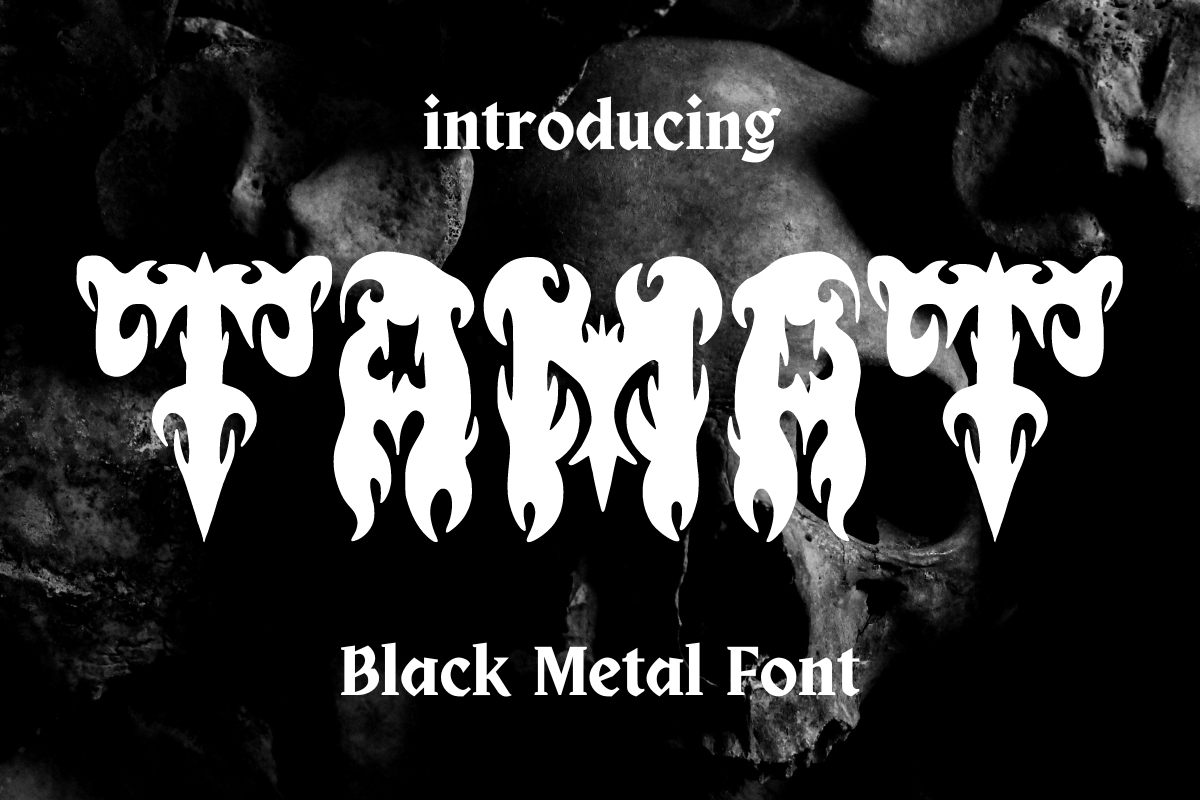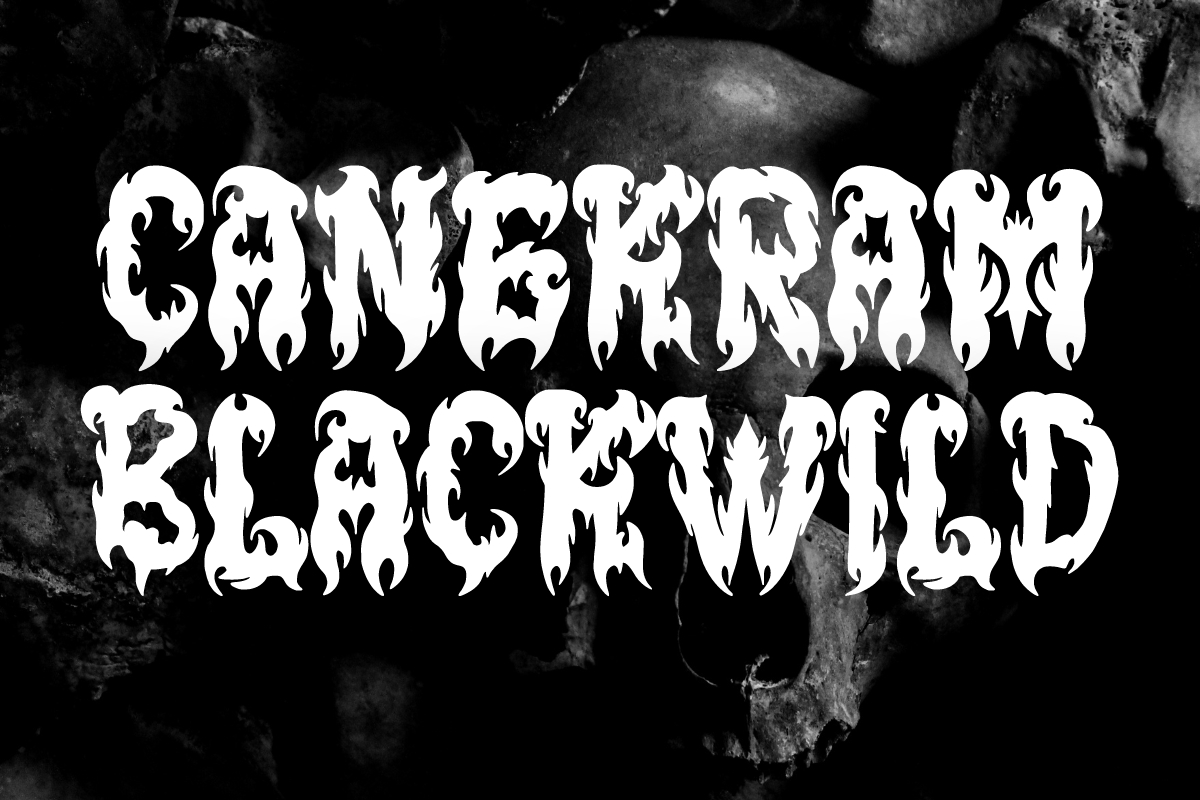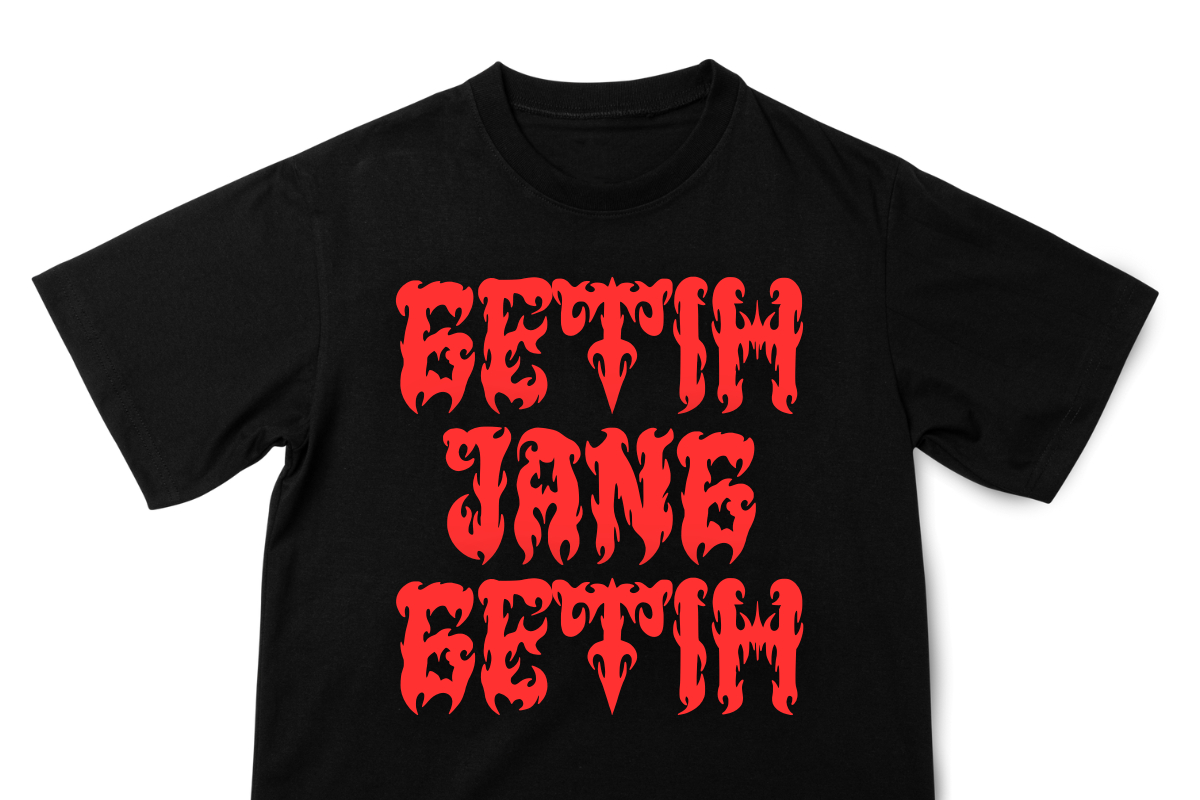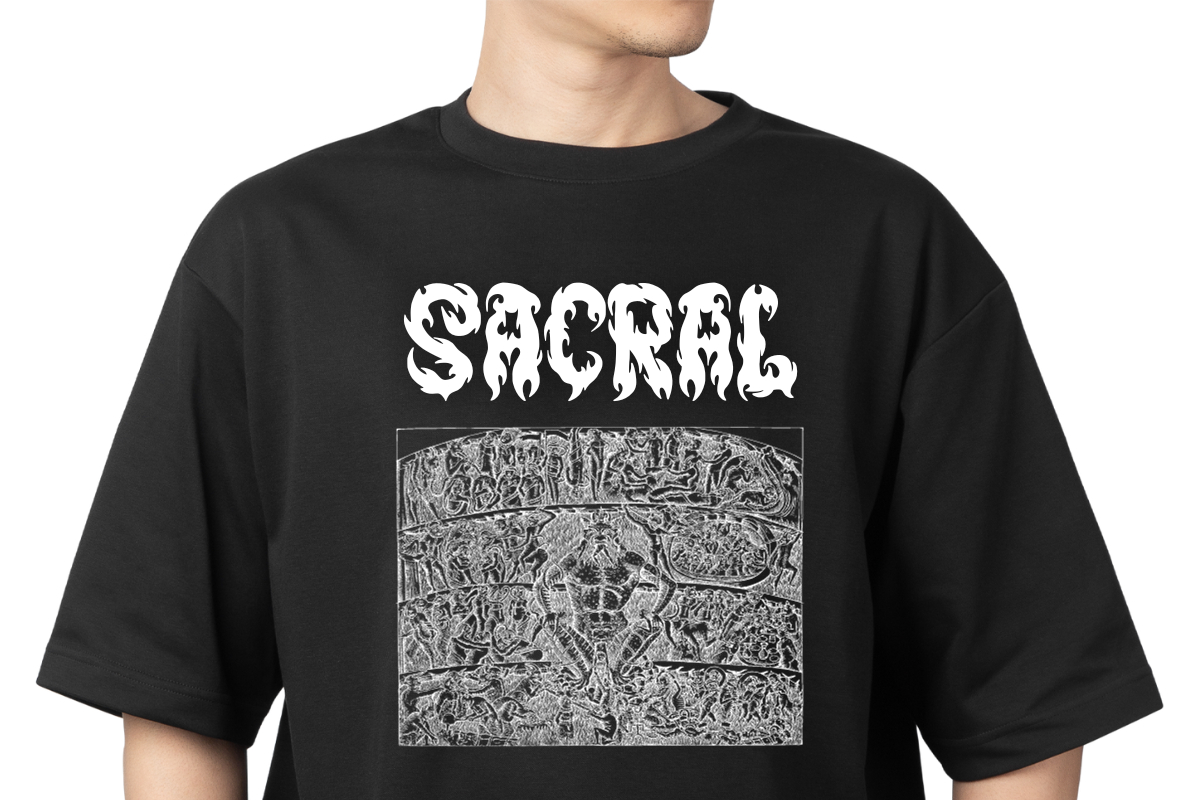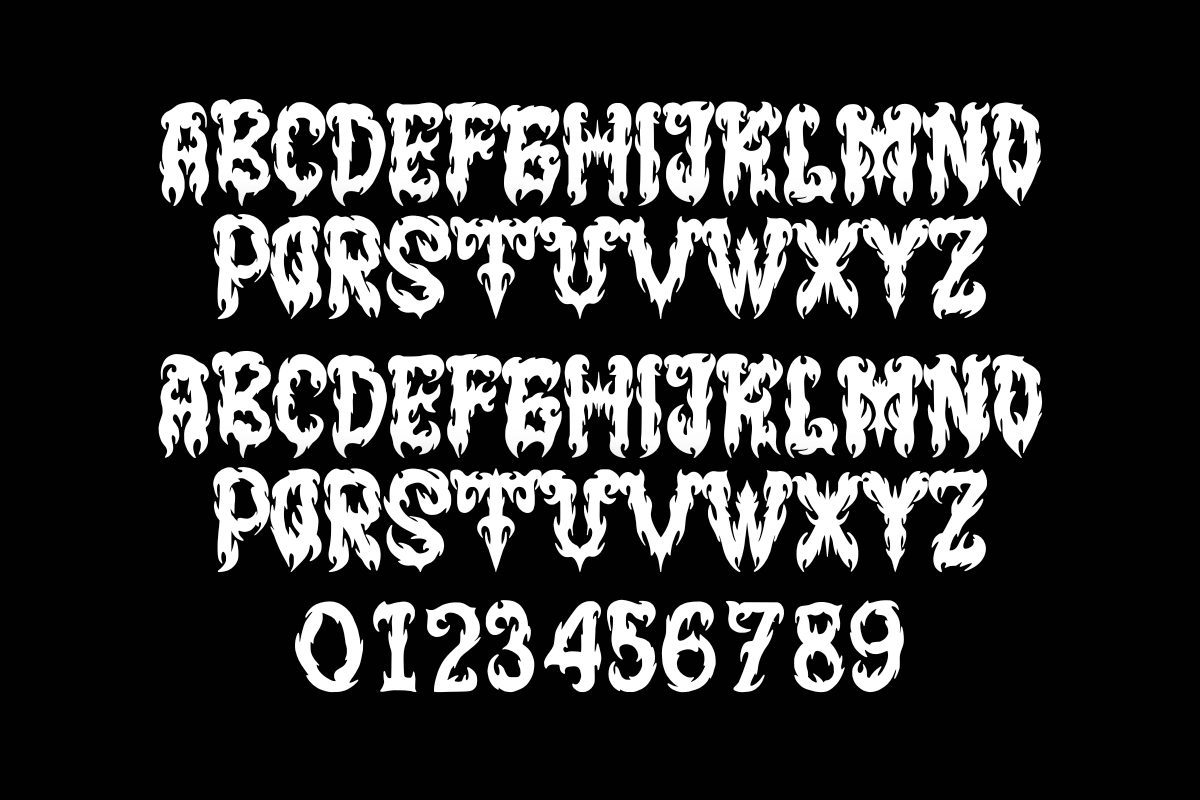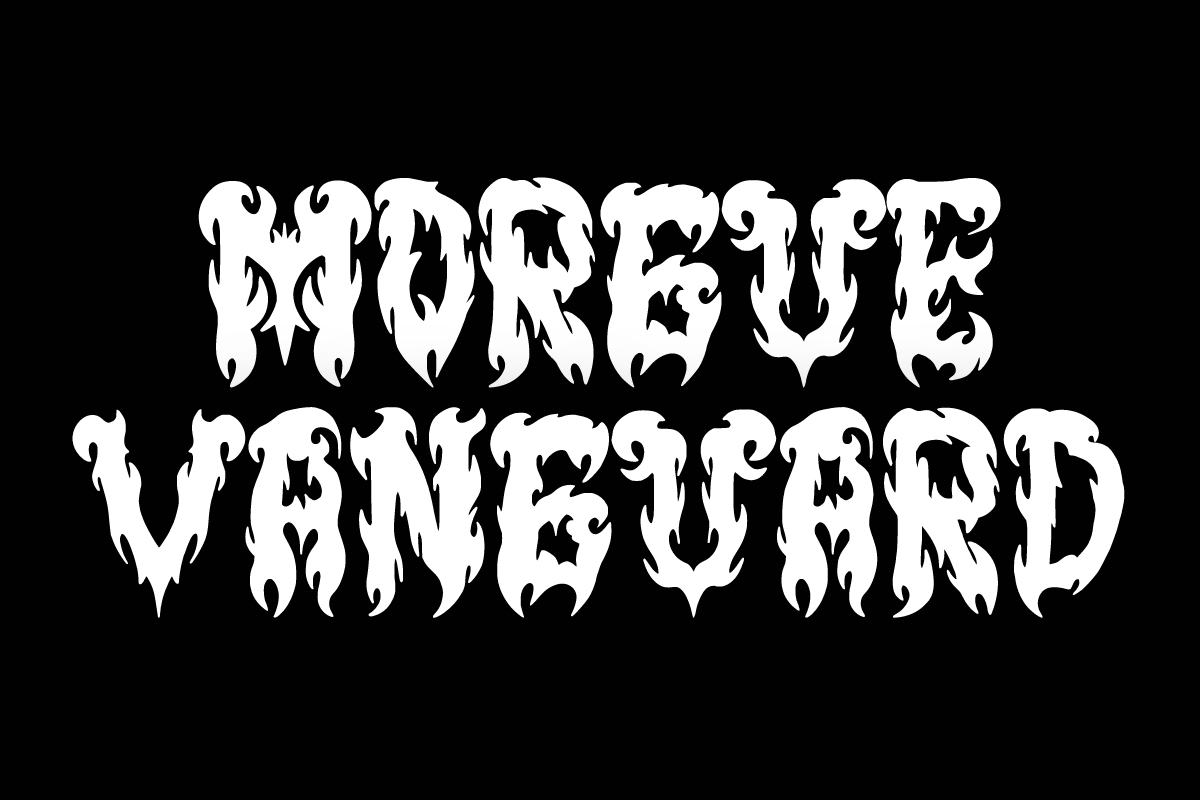
Tamat Font
About Tamat Font
Tamat is a unique and very detailed Horror Metal Font. It will be a great choice for beautiful retro-urban designs, tattoo business branding, logos, t-shirts, vintage designs and more.